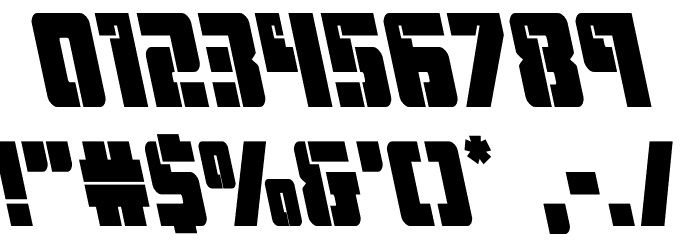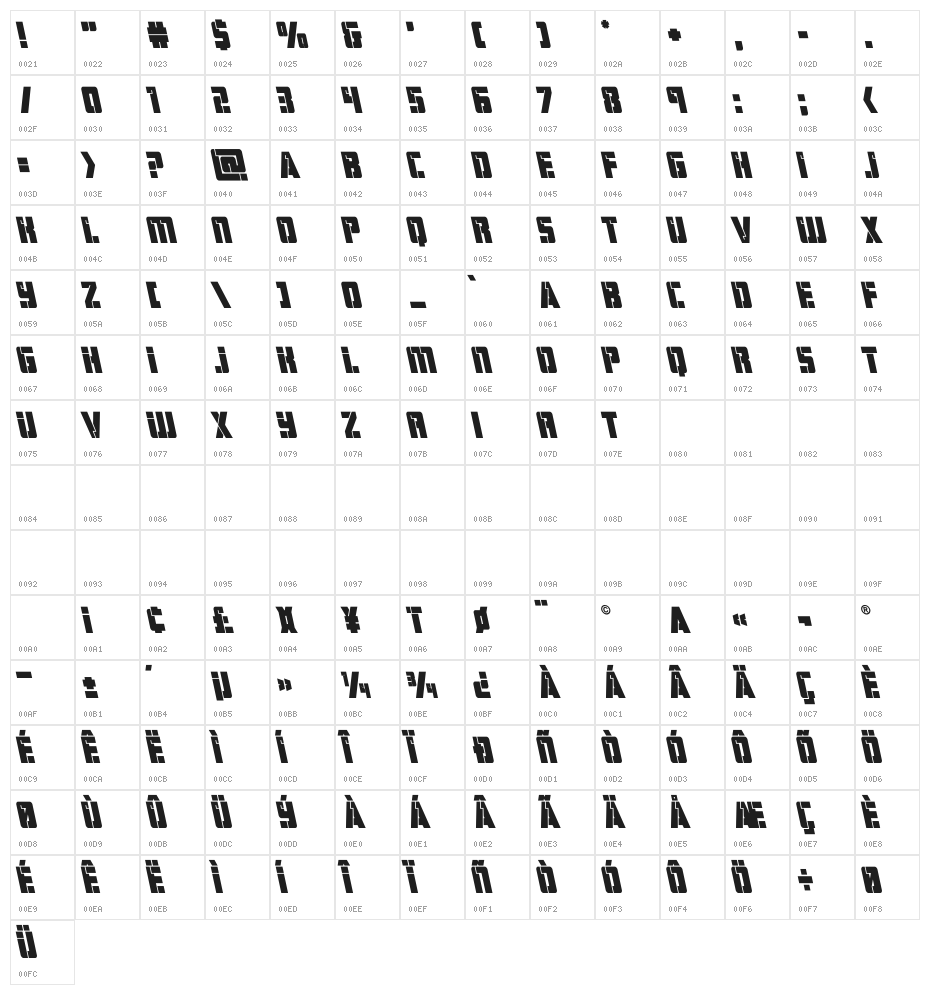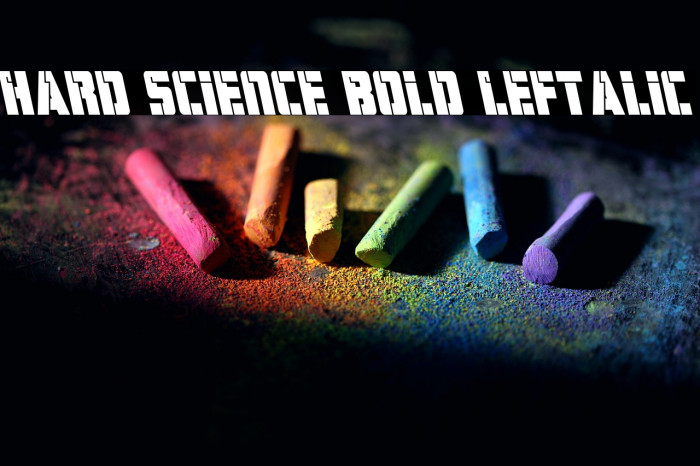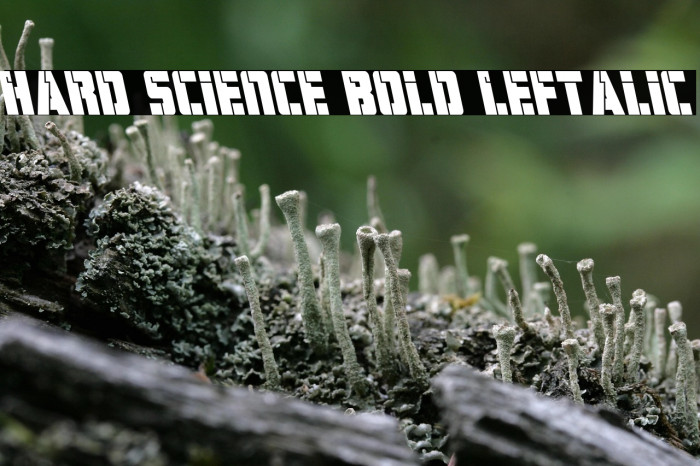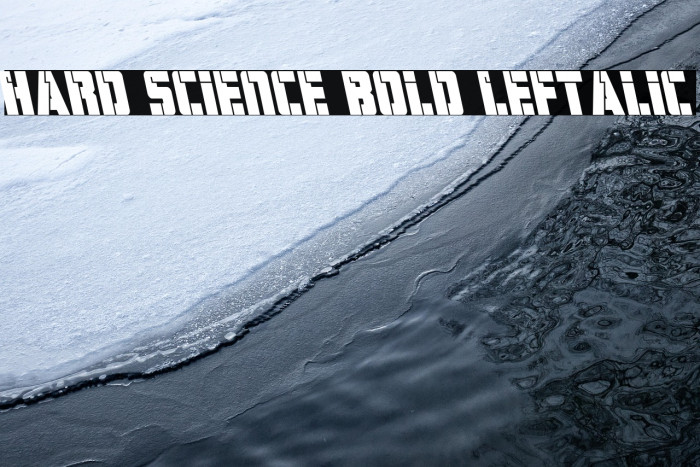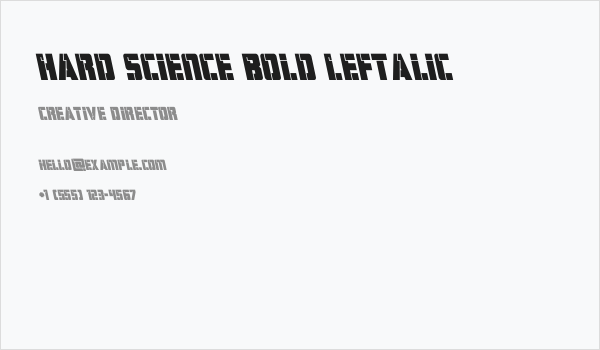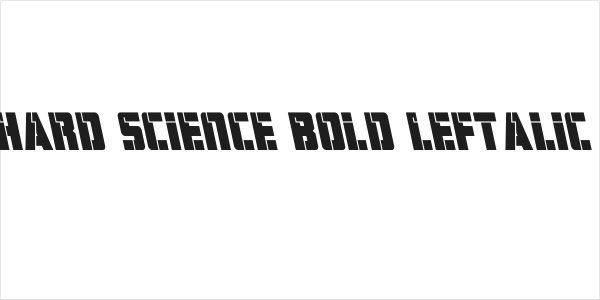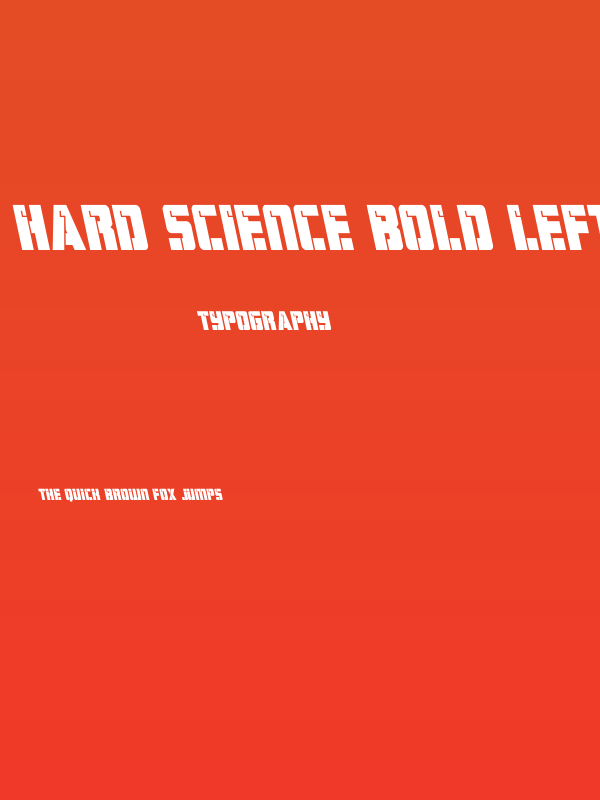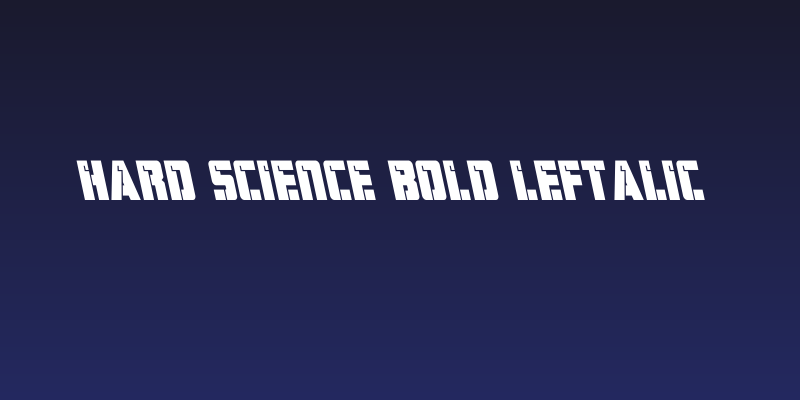
Hard Science Bold Leftalic Font
Hard Science Bold Leftalic Description
This font features a bold, geometric design with a strong, angular presence. The characters are constructed with thick strokes and sharp edges, giving it a futuristic and industrial feel. The letters are slightly slanted to the left, adding a dynamic and unconventional touch. The font maintains a consistent weight throughout, emphasizing its boldness. It includes a full set of uppercase and lowercase letters, numbers, and a variety of special characters. The overall appearance is striking and attention-grabbing, making it suitable for impactful designs.
| Overall Style | Futuristic, Industrial |
| Proposed Projects | Ideal for sci-fi themed posters, video game titles, technology branding, and industrial design projects. |